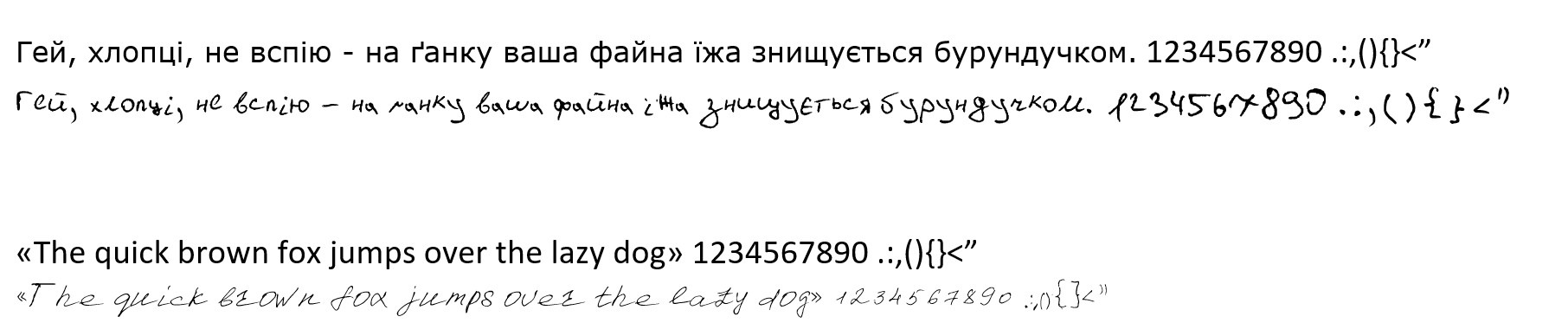
Personal Font
The development of a personalized font that mimics handwriting aims to create a unique style that conveys the natural variability of handwritten text. The font includes various letter variations, allowing the text to appear more natural and lively. Using FontCreator Pro software enables detailed customization of each symbol and the creation of a font with different letter variations to avoid uniformity.
Key stages of development include:
Designing basic letterforms that mimic handwriting.
Integrating alternative variants for each symbol.
Optimizing the font for readability and natural appearance.
Testing the font in different documents and across platforms to ensure compatibility.
This type of font can be used to create personalized, "living" texts, ideal for personal letters, invitations, or branded materials where a personal touch is important.